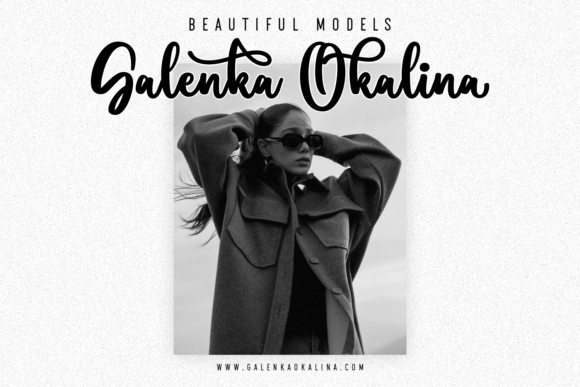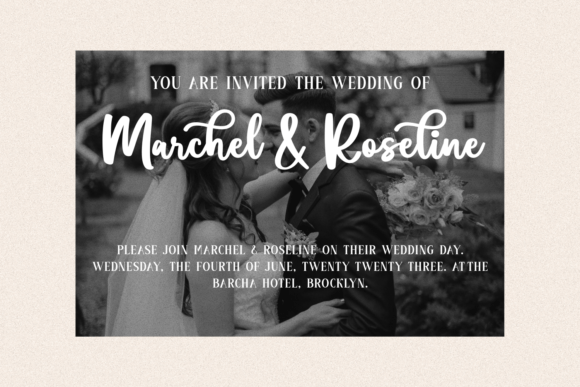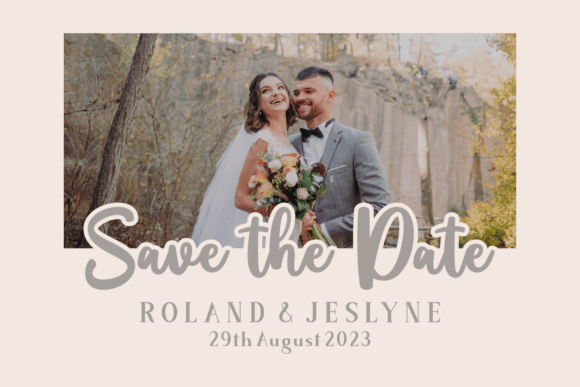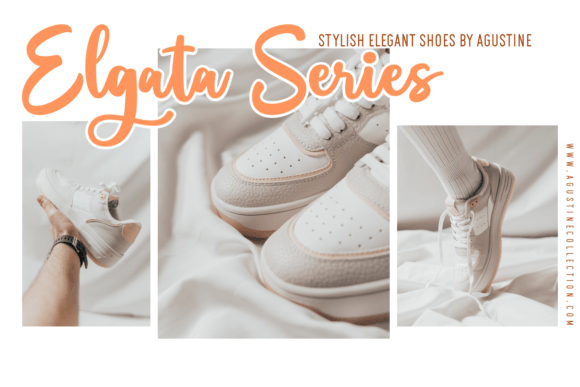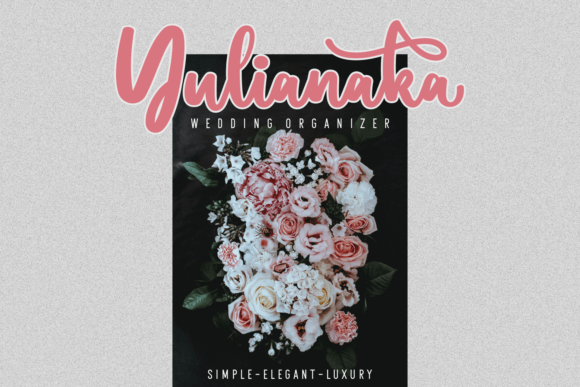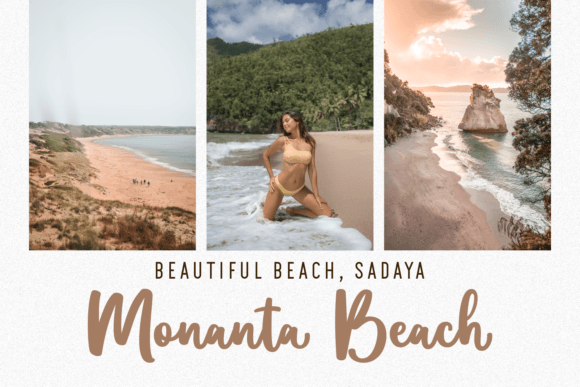
Introducing Barqalina Font: Elevate Your Designs with Elegance and Sophistication
In the world of typography, a well-crafted font can make all the difference in transforming a design from ordinary to extraordinary. For designers and crafters seeking to add a touch of luxury and exclusivity to their work, Barqalina Font is an exceptional choice. This premium handwritten font boasts refined details and elegant lines, making it perfect for high-end branding, luxury invitations, and sophisticated designs.
What Makes Barqalina Font Stand Out?
Barqalina Font is designed to bring a sense of refinement and elegance to any design project. Its unique characteristics include:
- Refined Details: Every letterform is carefully crafted with attention to detail, ensuring a polished and high-end look.
- Elegant Lines: The font’s flowing lines and curves create a sense of sophistication, perfect for luxury branding and high-end designs.
- PUA Encoding: Barqalina Font is PUA (Private Use Area) encoded, allowing effortless access to all glyphs and swashes. This feature makes it easy to use and customize, saving designers time and effort.
Perfect for High-End Branding and Luxury Designs
Barqalina Font is specifically designed for designers and crafters who want to create high-end branding, luxury invitations, and sophisticated designs. Its elegant and refined features make it an ideal choice for:
- Luxury Brands: Establish a premium brand image with Barqalina Font, perfect for high-end fashion, jewelry, and lifestyle brands.
- Wedding and Event Invitations: Create stunning and sophisticated invitations that set the tone for exclusive events.
- Packaging and Product Design: Elevate your product design with a touch of elegance, making your products stand out in a crowded market.
Why Choose Barqalina Font?
With so many fonts available, why choose Barqalina Font? Here are just a few reasons:
- Unique and Exclusive: Barqalina Font offers a distinctive and exclusive look that will set your designs apart from the rest.
- High-Quality Design: Crafted with precision and attention to detail, Barqalina Font is a high-quality design that will elevate your work.
- Easy to Use: With PUA encoding, using Barqalina Font is effortless, allowing you to focus on your design rather than tedious font management.
Tips for Using Barqalina Font
To get the most out of Barqalina Font, consider the following tips:
- Pair with Neutral Colors: Let Barqalina Font shine by pairing it with neutral colors that won’t compete with its elegance.
- Experiment with Swashes: Take advantage of the font’s swashes to add a touch of personality to your designs.
- Use for Headlines and Titles: Barqalina Font is perfect for headlines and titles, adding a touch of sophistication to your designs.
In conclusion, Barqalina Font is an exceptional choice for designers and crafters seeking to add a touch of luxury and exclusivity to their work. With its refined details, elegant lines, and PUA encoding, this premium handwritten font is perfect for high-end branding, luxury invitations, and sophisticated designs. Whether you’re a seasoned designer or just starting out, Barqalina Font is sure to elevate your designs and help you stand out in a crowded market.